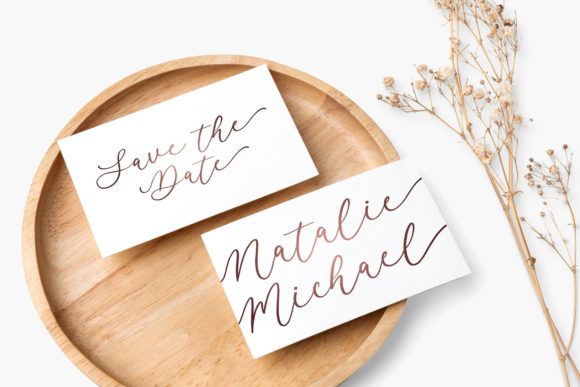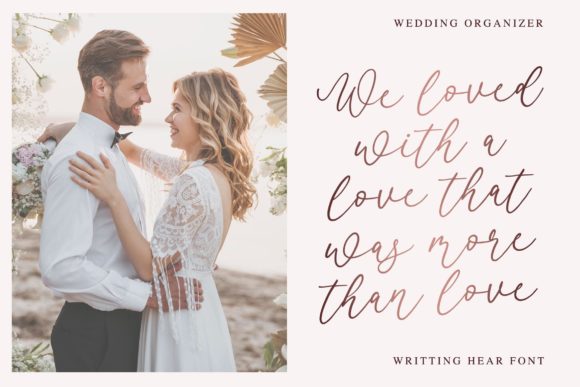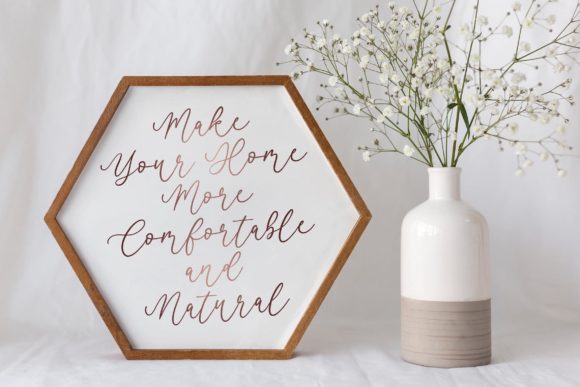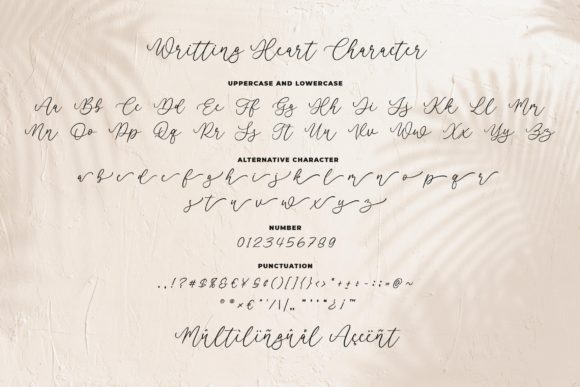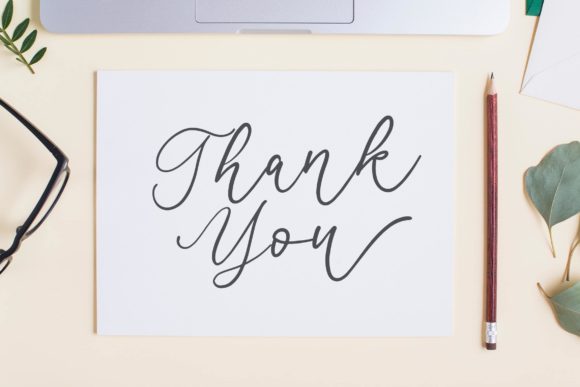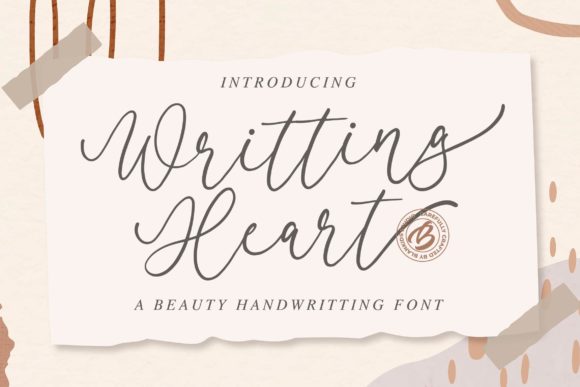
About Writting Heart Font
Writting Heart is a stunning and stylish script font that adds a touch of beauty and elegance to any design project. Its graceful and flowing characters make it a versatile choice for a variety of creative applications.
When used in branding and logo design, Writting Heart can create a memorable and eye-catching visual identity. Its unique and stylish script adds a sense of sophistication and charm, making it suitable for businesses that want to stand out and make a lasting impression.
For social media graphics, quotes, and inspirational messages, Writting Heart brings a touch of personality and flair. Its beautiful swashes and glyphs add a decorative element that enhances the overall visual appeal of posts and messages, making them more engaging and captivating to the audience.
The font’s PUA encoding allows for easy access to a wide range of glyphs and swashes, giving you the creative freedom to customize and personalize your designs. This feature makes it a valuable tool for creating unique and one-of-a-kind artwork.
In wedding invitations and event materials, Writting Heart can convey a sense of romance and elegance. Its delicate strokes and graceful curves create a sense of intimacy and warmth, setting the tone for a special occasion and leaving a lasting impression on guests.
Whether it’s used for packaging, labels, or product designs, Writting Heart can add a touch of refinement and sophistication. Its stylish and contemporary script style can elevate the overall look of products and make them more visually appealing to consumers.
Overall, Writting Heart is a beautiful and stylish script font that brings a sense of elegance and charm to a wide range of design projects. Its versatility, combined with its PUA encoding for easy glyph access, makes it a valuable asset for designers looking to create impeccable and captivating visuals.